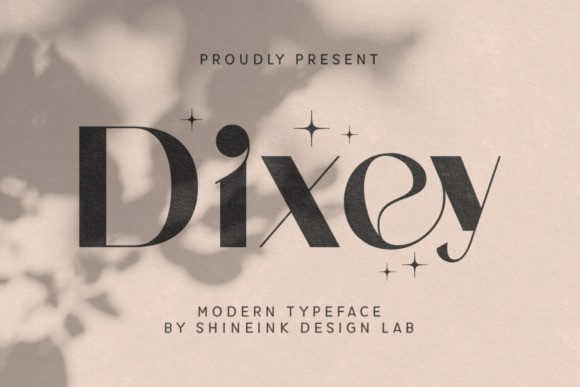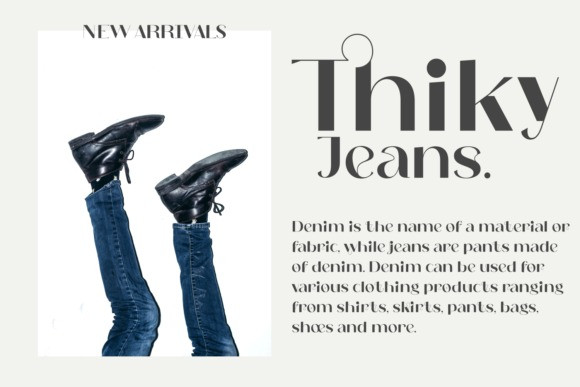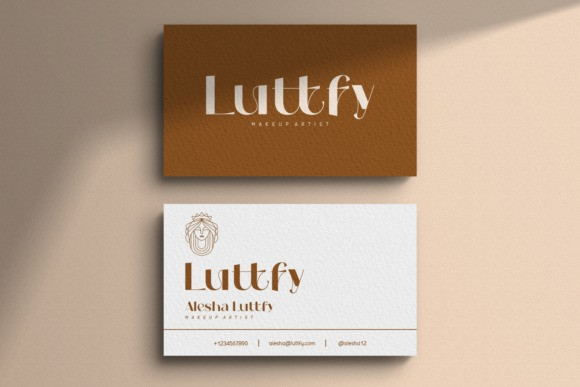
Dixey Font
Dixey is an elegant and modern sans serif font. This font is PUA encoded which means you can access all of the glyphs and swashes with ease!